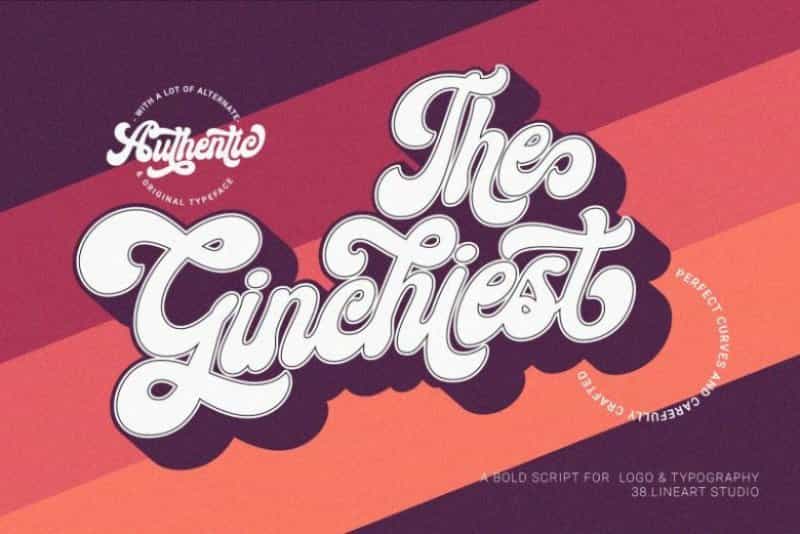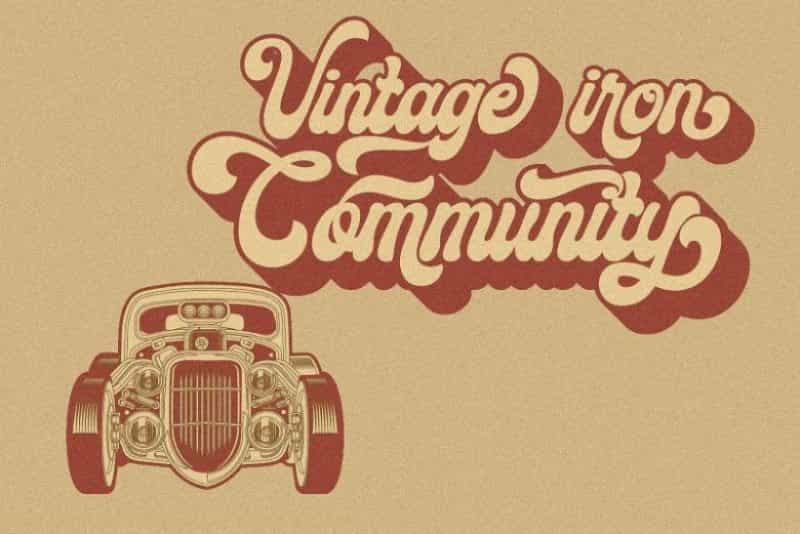
Increasing the size of the font we present our brand new font called Ginchiest. To match the name of the word ‘Ginchiest’, it refers to something that is most interesting, cool and hip; prettiest, smartest; entertaining and cheerful company to have. You’re the ginchiest! Probably this might be a slang you have come across; it aptly describes Ginchiest font in the best way one could.